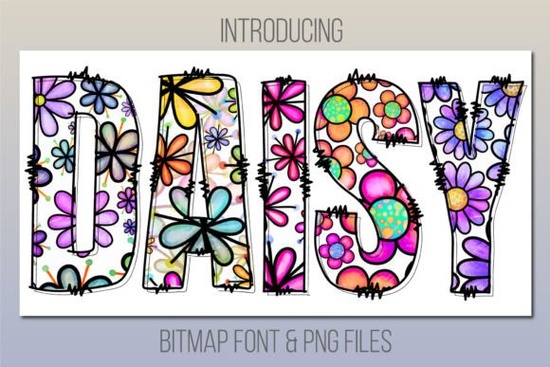
If you're looking for a cheerful, eye-catching typeface that adds instant personality to your designs, the Daisy Font might be just what you need. This playful color font brings a handcrafted, whimsical feel to everything from greeting cards and kids’ party invites to branding elements and social media graphics. Unlike standard fonts, Daisy includes built-in color and texture so each letter looks like it’s been stamped with a cheerful daisy print.
Designed with joy in mind, Daisy works especially well for projects that call for warmth, friendliness, or a touch of nostalgia. Think baby shower decorations, spring-themed merchandise, classroom materials, or even boutique packaging. Because it’s a bitmap-based color font, it delivers consistent, vibrant results without needing extra layering or effects.
What makes Daisy Font different from regular fonts?
Most fonts you use are vector-based and single-color you pick the hue in your design software. Daisy, however, is a color font, meaning each character already contains multiple colors and detailed textures baked right in. That gives it a unique, illustrated look that’s hard to replicate with standard typefaces.
Who should use Daisy Font?
This font shines for creators who want to add charm without spending hours on custom illustrations. Here’s how different users might put it to work:
- Print-on-demand sellers can use it for t-shirt quotes, mug designs, or tote bags with uplifting messages.
- Small business owners might incorporate it into logos, labels, or promotional flyers for bakeries, florists, or children’s boutiques.
- Teachers and homeschoolers can create engaging worksheets, classroom signs, or reward charts.
- Digital scrapbookers and card makers will love how it adds instant cheer to layouts and invitations.
Because of its friendly aesthetic, Daisy pairs beautifully with soft pastels, kraft paper backgrounds, and hand-drawn elements. It’s less suited for formal or corporate contexts but that’s exactly where its strength lies: authenticity and approachability.
Is Daisy Font right for your next project?
Ask yourself: Does your design need a smile? If you’re working on anything lighthearted, seasonal (especially spring or summer), or kid-focused, Daisy Font could save you time while delivering standout visuals. Just double-check your software compatibility first or plan to use the included PNGs as a flexible workaround.